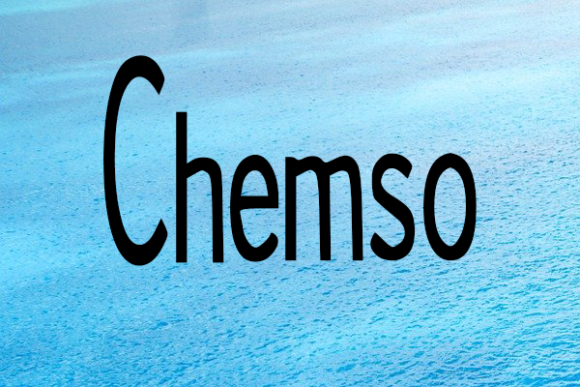
Chemso Font: The Ultimate Sans Serif for Designers and Crafters
Are you tired of using overused fonts that lack originality and flair? Look no further than Chemso Font, a simple and clean sans serif font that’s taking the design world by storm. This beautiful and professional typeface is perfect for a wide range of applications, from film posters and headlines to block letters, subheadings, logo designs, and more.
What Makes Chemso Font So Special?
Chemso Font is a game-changer for designers and crafters who want to add a touch of elegance and sophistication to their work. Its simple and clean design makes it incredibly versatile, allowing it to be used in a variety of contexts. Whether you’re creating a bold and eye-catching headline or a subtle and understated subheading, Chemso Font is the perfect choice.
Key Features of Chemso Font
- Simple and Clean Design: Chemso Font features a sleek and minimalist design that’s perfect for modern designs.
- Sans Serif Style: The font’s sans serif style gives it a clean and contemporary look that’s perfect for a wide range of applications.
- Highly Versatile: Chemso Font can be used for film posters, headlines, block letters, subheadings, logo designs, and more.
- Beautiful and Professional: The font’s beautiful and professional design makes it perfect for designers and crafters who want to create high-quality work.
Chemso Font is a must-have for designers and crafters who want to take their work to the next level. Whether you’re creating a logo, brochure, or website, this font is sure to impress. Its clean and simple design makes it easy to read and understand, while its beautiful and professional style adds a touch of elegance and sophistication.
Use Cases for Chemso Font
Chemso Font is incredibly versatile and can be used in a wide range of applications, including:
- Film Posters: Create eye-catching film posters with Chemso Font’s bold and clean design.
- Headlines: Use Chemso Font to create bold and attention-grabbing headlines that get noticed.
- Block Letters: Create beautiful and professional block letters with Chemso Font’s clean and simple design.
- Subheadings: Use Chemso Font to create subtle and understated subheadings that add a touch of elegance to your work.
- Logo Designs: Create stunning logo designs with Chemso Font’s beautiful and professional style.
Why Choose Chemso Font?
There are many fonts to choose from, but Chemso Font stands out from the rest. Here are just a few reasons why:
- Unique and Original: Chemso Font is a unique and original font that’s sure to make your work stand out.
- Easily Readable: The font’s clean and simple design makes it easy to read and understand.
- High-Quality Design: Chemso Font features a high-quality design that’s perfect for professional designers and crafters.
- Versatile: The font’s versatility makes it perfect for a wide range of applications.
Chemso Font is a game-changer for designers and crafters who want to add a touch of elegance and sophistication to their work. Its simple and clean design, beautiful and professional style, and versatility make it the perfect choice for a wide range of applications. Whether you’re creating a film poster, headline, block letters, subheading, or logo design, Chemso Font is the ultimate sans serif font for your design needs.